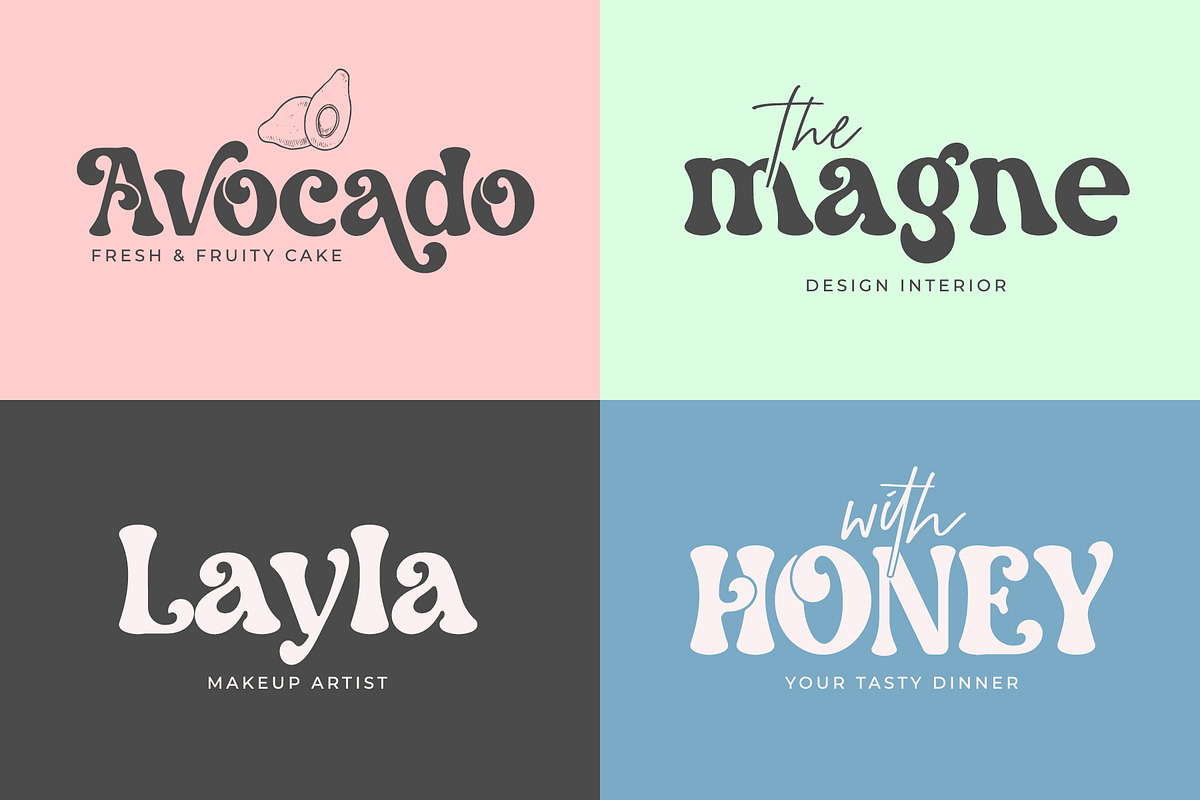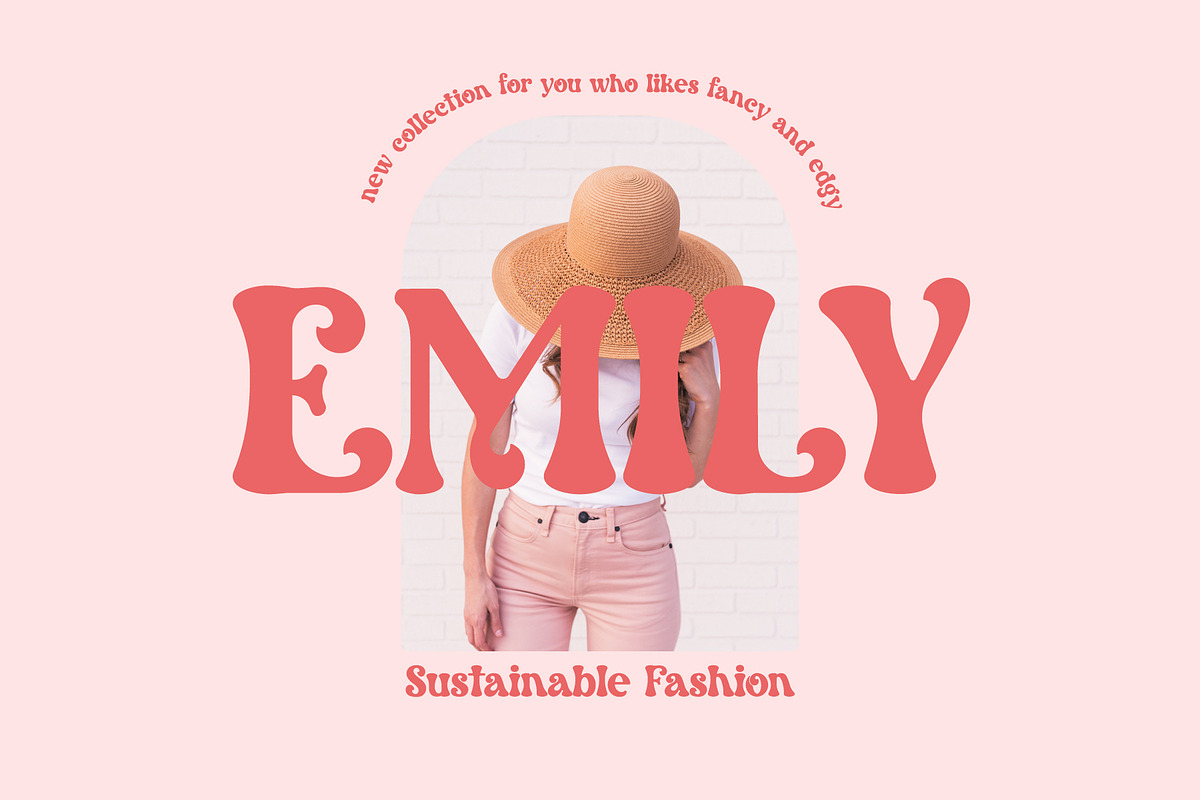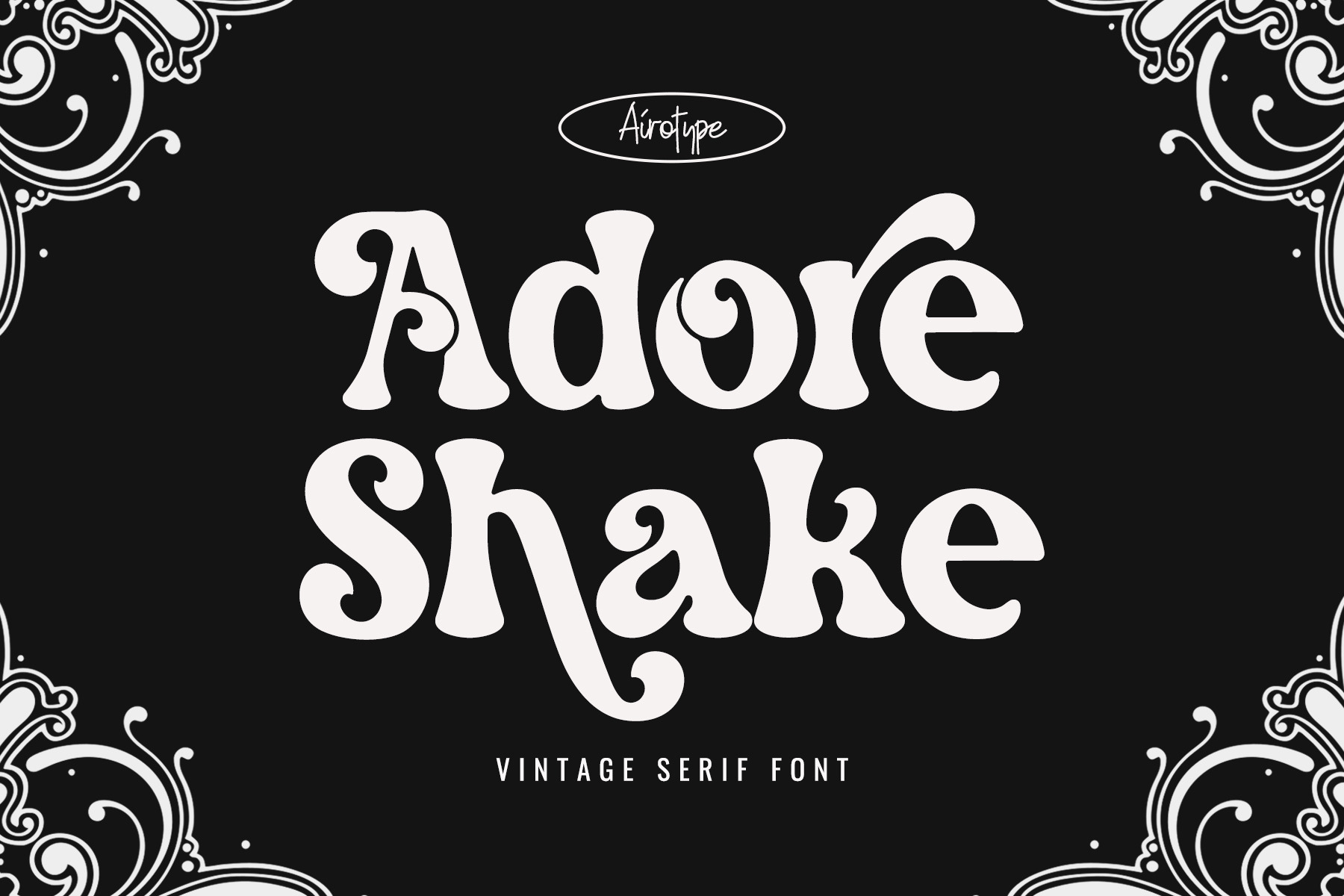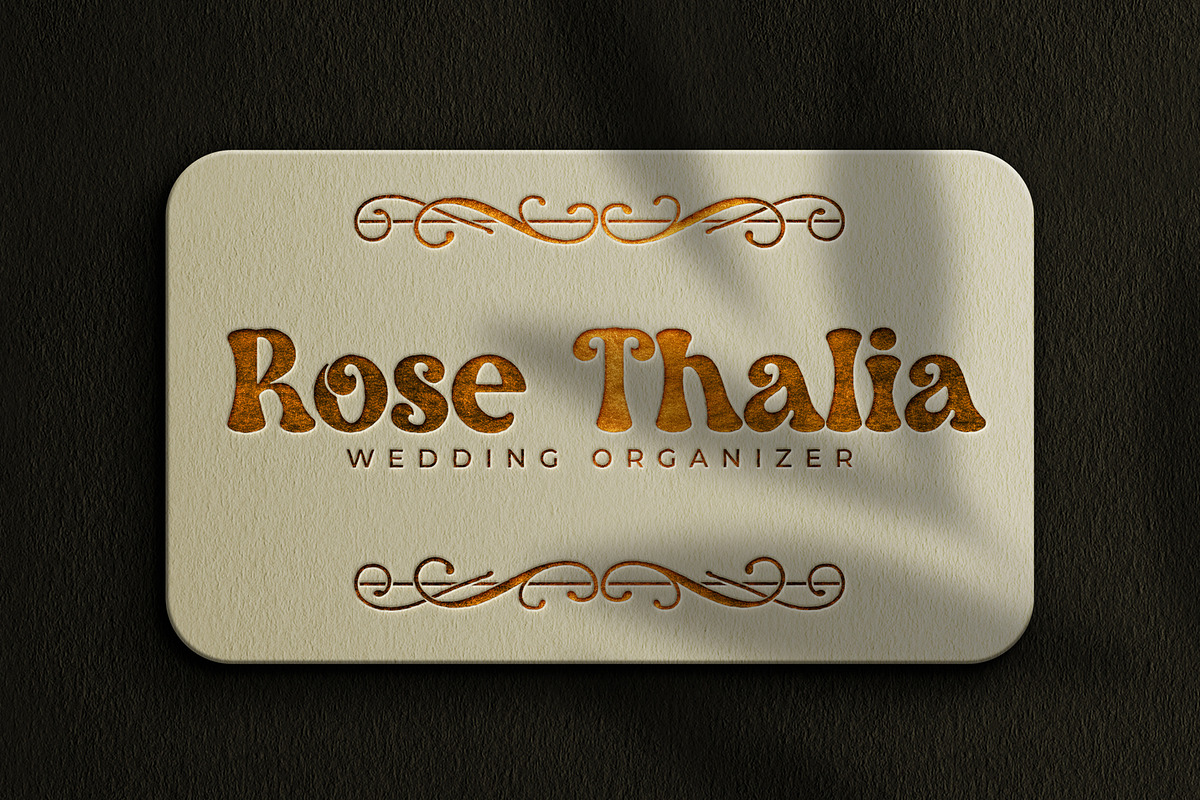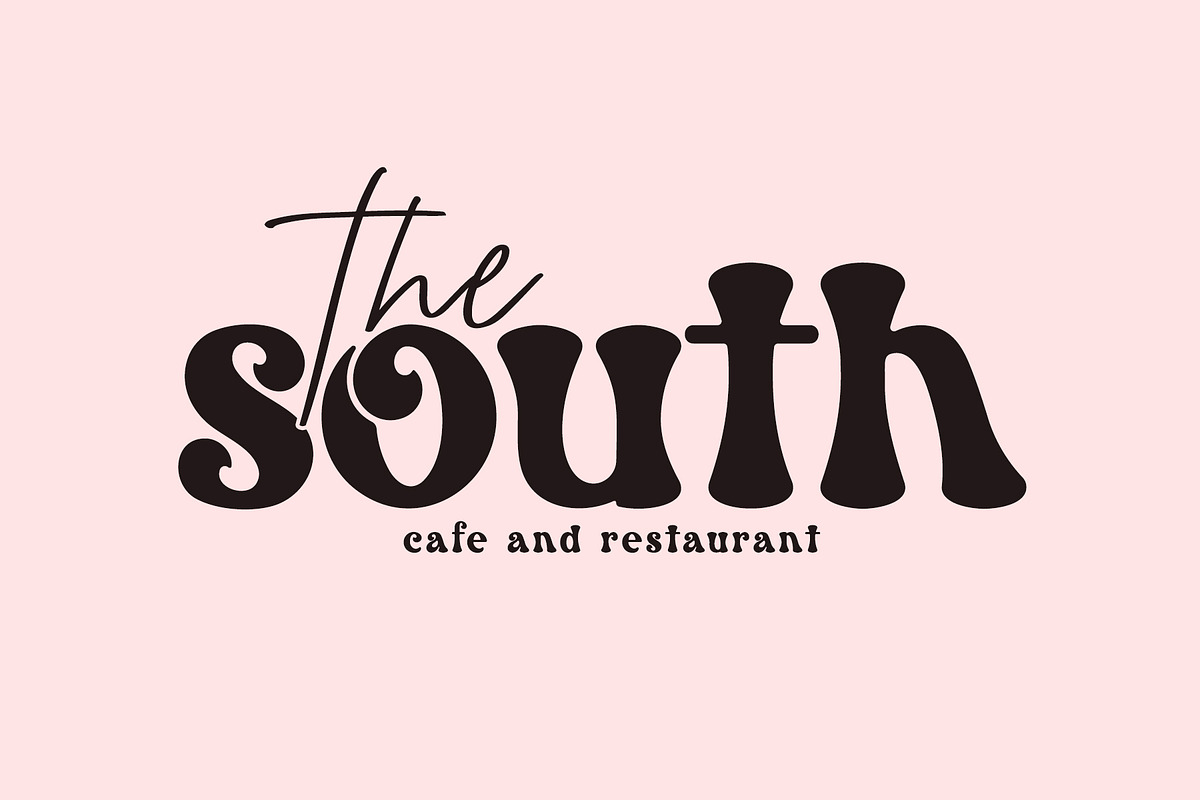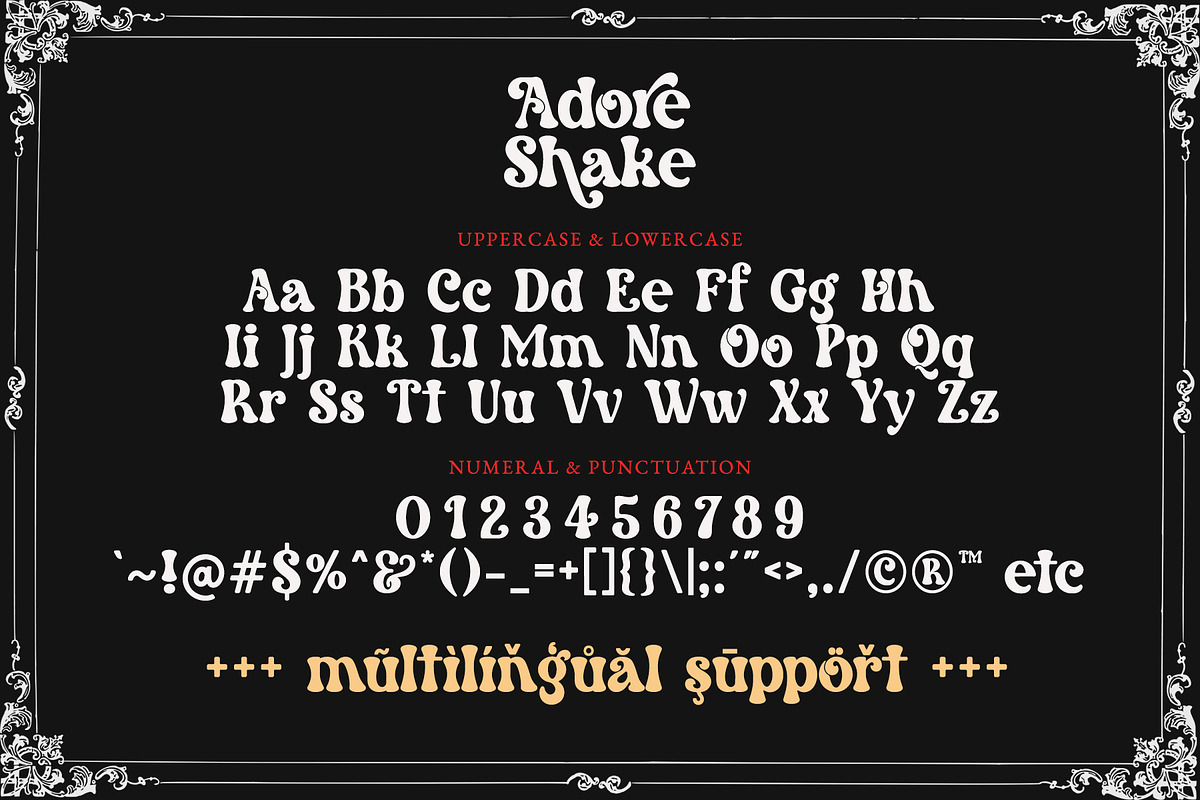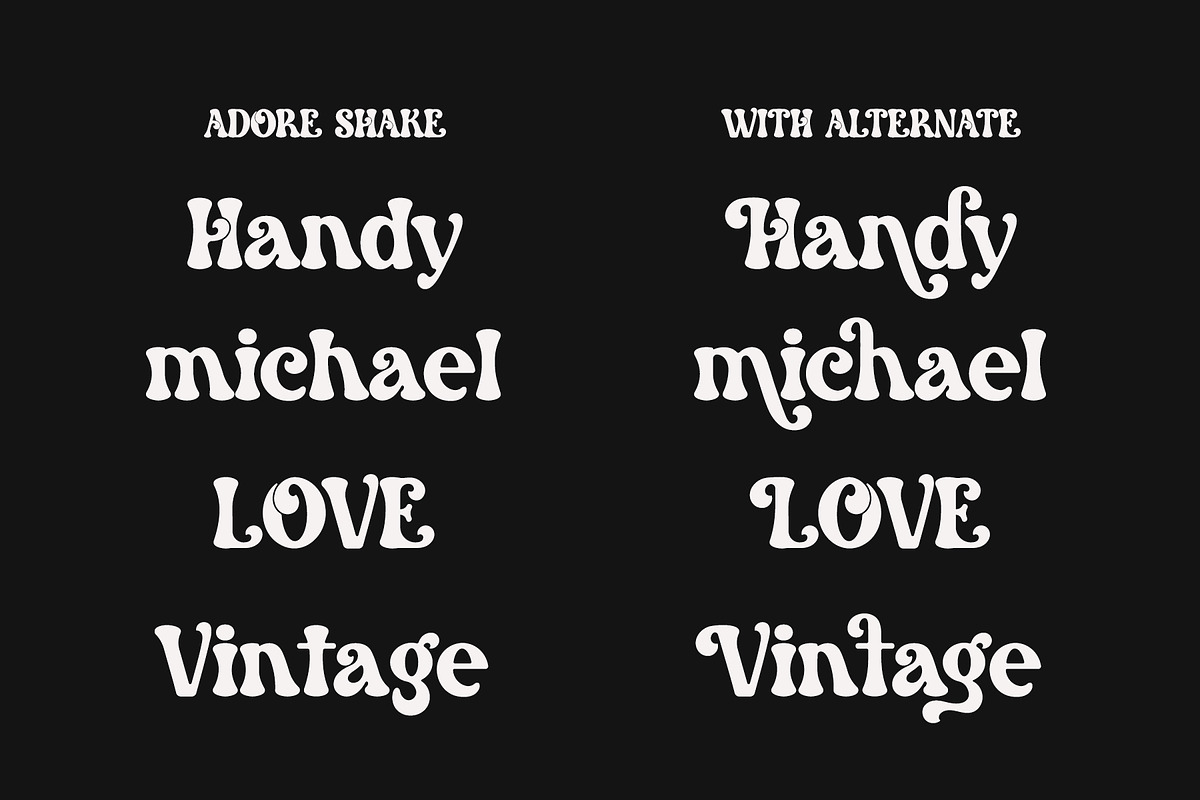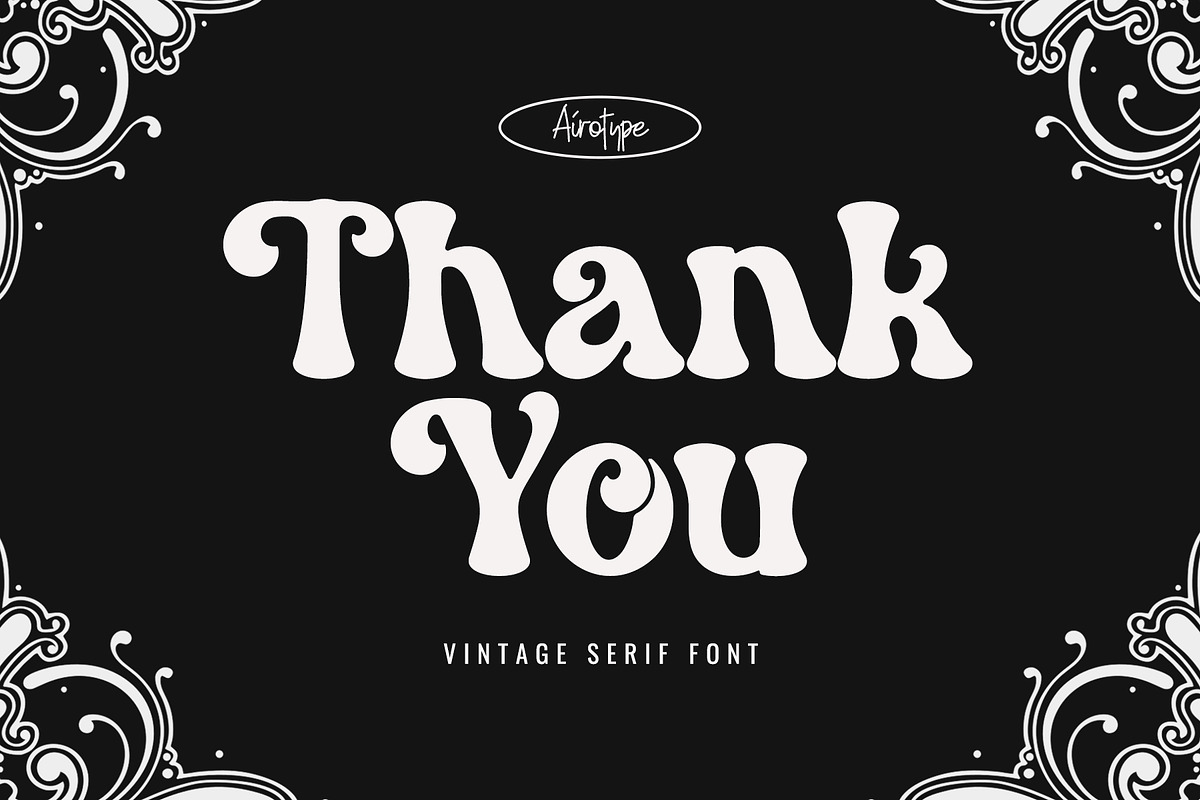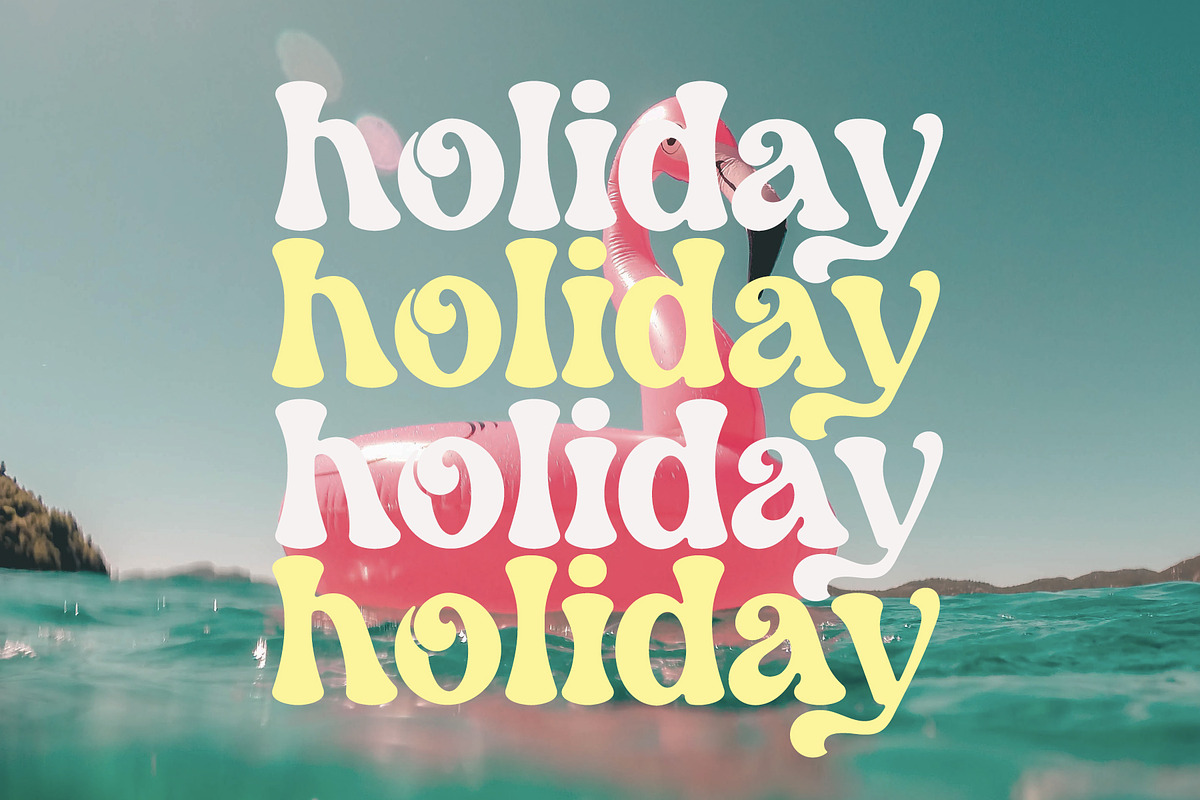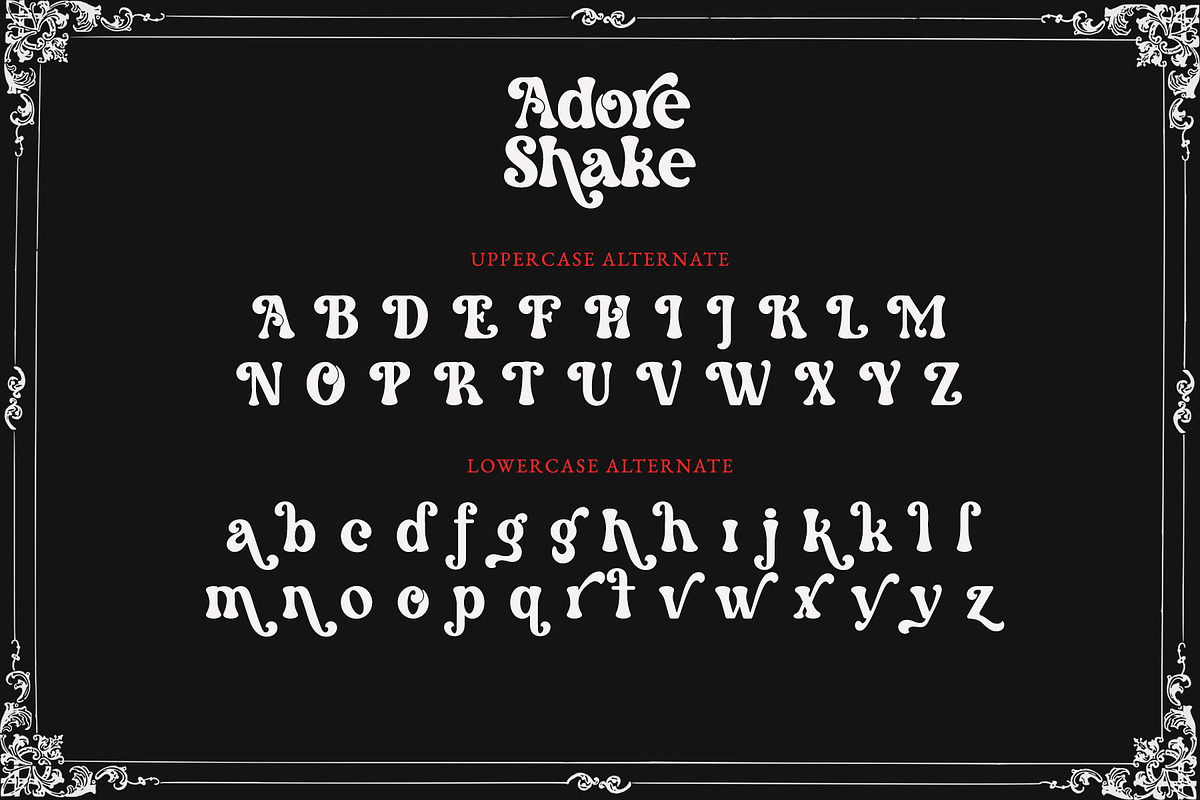
Adore Shake - Retro Serif Font
Adore Shake is elegant serif font with vintage vibes. It is pretty, elegant, and having swirl touch.
This font is lovable font for any projects with modern vintage touch, such as logo, crafting, wedding invitation, branding, sticker, sublimation, quotes, and many others.
- Uppercase and Lowercase (include PUA-Encoded extra glyphs)
- Most Multilingual Accent